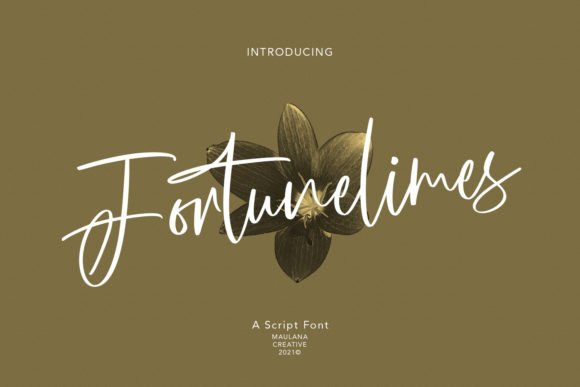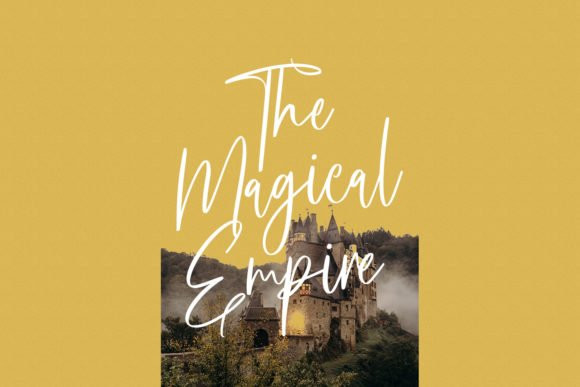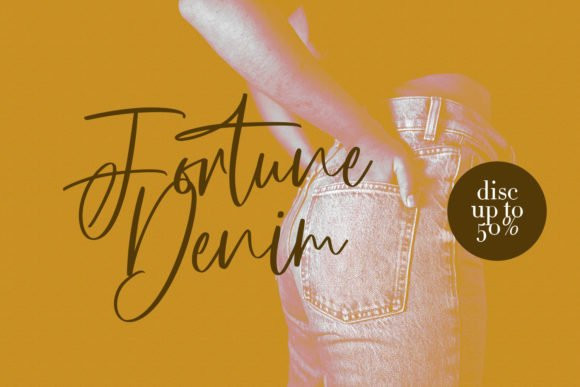
Fortunelimes Font
Fortunelimes Script is a laid-back, flowing and fashionable script font. It is defined by cool curves and is perfect for fashion branding or editorial designs. Add it confidently to your projects, and you will love the results.